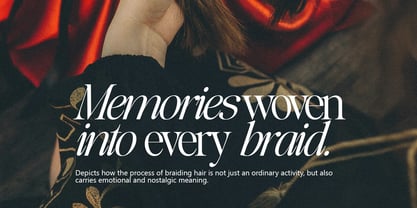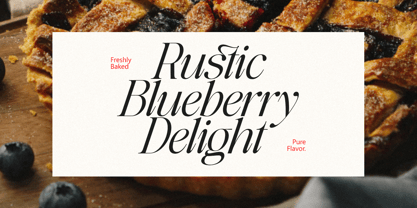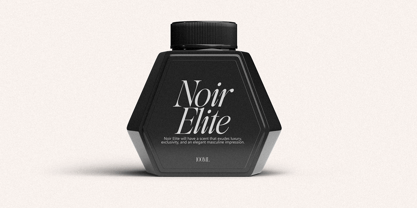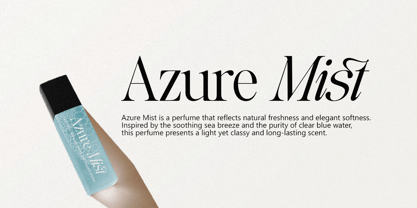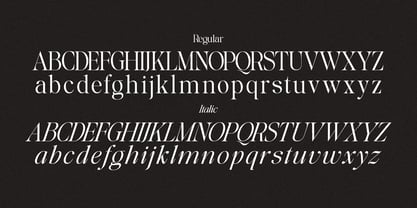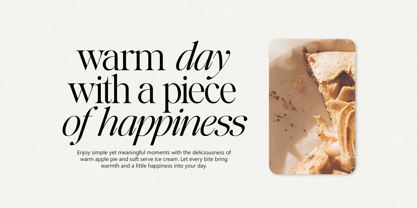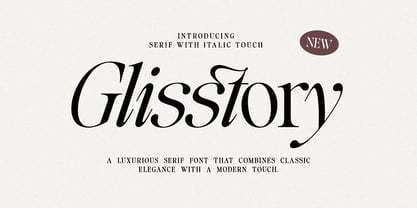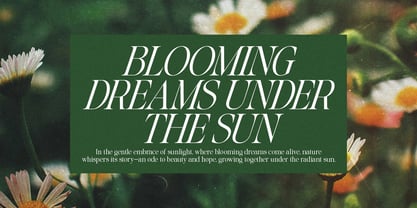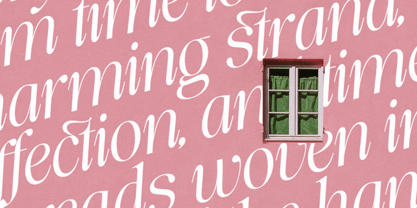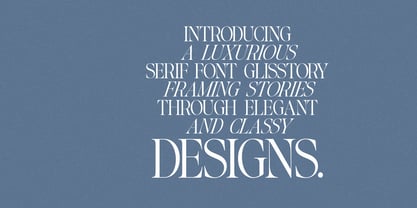
Glisstory
by Pista Mova
The Glisstory Font Family was designed by Haikal Juanda and published by Pista Mova. Glisstory contains 2 styles and family package options.
Introducing Glisstory: A Typeface for Timeless Elegance
Make a lasting impression with Glisstory, the perfect blend of classic sophistication and modern versatility. Designed to captivate, Glisstory’s high-contrast strokes and graceful curves bring an air of luxury to any project.
Whether you're crafting a premium brand identity, an elegant editorial layout, or an engaging website, Glisstory ensures your design stands out. Each character is carefully shaped for strength, balance, and readability, while its true italics add fluidity and visual interest, making your text effortlessly stylish.
Why Choose Glisstory?
• Instant Elegance: Clean lines and refined proportions create a timeless look.
• Premium OpenType Features: Unlock creative potential with ligatures and advanced typography controls.
• Global Reach: Support for over 90 languages ensures clear communication worldwide.
• True Italic Perfection: A thoughtfully designed italic style that complements upright characters flawlessly.
Designed for:
• Luxury Branding & Logos – Elevate your brand with Glisstory’s distinguished charm.
• Editorial Excellence – Perfect for magazines, books, and newspapers seeking a touch of sophistication.
• Web & Digital – Optimized for clarity and impact on all screen sizes.
• Premium Packaging – Add class to product labels, invitations, and high-end stationery.